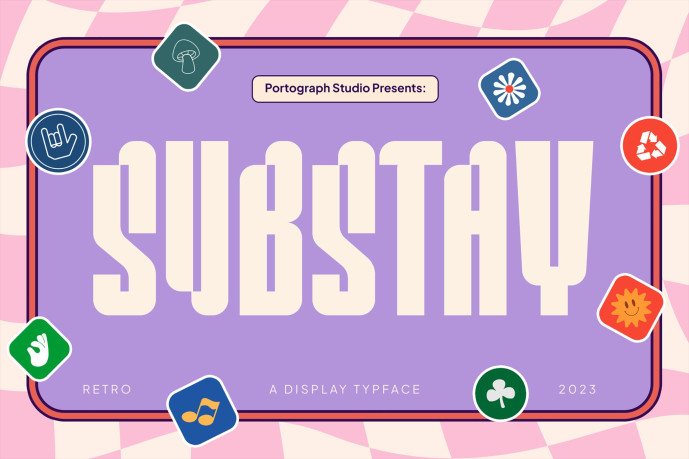
Substay Font
Designer: portograph
Substay Font is a retro inspired bold display typeface designed to deliver strong visual impact with a playful and nostalgic feel. Featuring tall proportions, chunky, and smooth rounded edges, Substay brings a classic vintage vibe blended with modern clarity. Substay is a great choice for designers looking to add retro charm, personality, and confidence to their typography projects.